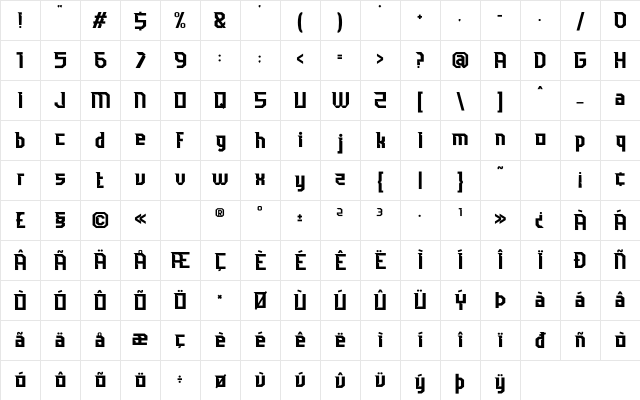
Burgs brings high-energy athletic personality to the page - its confident, muscular forms are built for impact.
Pro Tip: Use Burgs in all-caps headlines where its athletic energy can fully express itself. Pair with a solid, simple sans for supporting text.